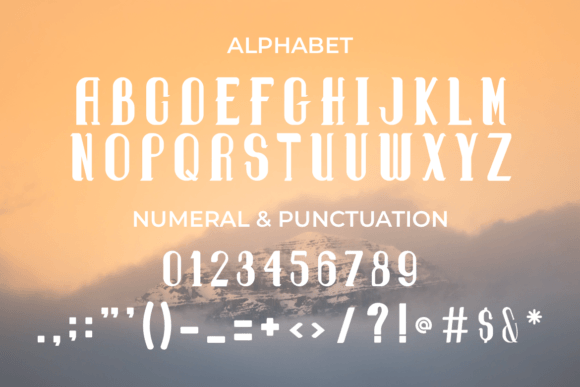
Introduction to Nurhachi Font
Remember the rush of excitement when you find the perfect design resource for your next creative project? For designers, it’s a moment that can make all the difference between a good design and a great one. I still recall the time I stumbled upon the Nurhachi Font – a cool and modern display font that instantly elevated my project’s aesthetic. Its trendy vibe and high-quality design made it perfect for crafting, digital designing, presentations, and even greeting card making.
As a valuable addition to any designer’s toolkit, the Nurhachi Font offers a level of sophistication and style that’s hard to find elsewhere. With its transparent background, it’s ideal for designers who want to add a touch of elegance to their work. And the best part? It’s available for free download, making it an accessible resource for creatives of all levels.
Key Features of Nurhachi Font
- Unique blend of traditional and modern design elements, making it perfect for creative projects.
- High-quality font with transparent background, ideal for use as a design resource.
- Designed to be versatile, Nurhachi Font is suitable for use in various design contexts, including posters, logos, and digital graphics.
- Features a unique and distinctive aesthetic, setting it apart from other fonts in the market.
- Perfect for designers and artists looking for a high-quality, free design resource to elevate their creative project.
Honest Review: Nurhachi Font
I recently came across the Nurhachi Font, and I was excited to give it a try for my next creative project. As a designer, I’m always on the lookout for high-quality fonts that can elevate my designs and provide a unique touch.
Here are some things that work well for the Nurhachi Font: ✨
- Unique and creative design: The font’s design is truly one-of-a-kind and can add a lot of personality to any project.
- High-quality font files: The font files are clear and well-rendered, making them perfect for both digital and print projects.
However, I did encounter a few limitations with the Nurhachi Font: ⚠️
- Limited font weights: The font only comes in a few weights, which can limit its versatility in certain projects.
- No transparent background: The font does not have a transparent background, which can make it difficult to use in certain design scenarios.
Overall, I was impressed with the Nurhachi Font, and I think it’s a great addition to any designer’s toolkit. While it may have a few limitations, its unique design and high-quality font files make it a valuable resource for any creative project.
Nurhachi Font is a high-quality, free download font suitable for creative projects. It features a transparent background, making it ideal for designers who want to add a unique touch to their designs.
Tips for Getting the Most Out of Nurhachi Font
To get the most out of Nurhachi Font, try the following:
- Combine Nurhachi Font with other design elements, such as graphics and images, to create a unique look.
- Use Nurhachi Font to add a touch of elegance and sophistication to your designs.
Common Use Cases for Nurhachi Font
Nurhachi Font is suitable for a variety of design projects, including:
- Business card design
- Brochure design
- Infographic design